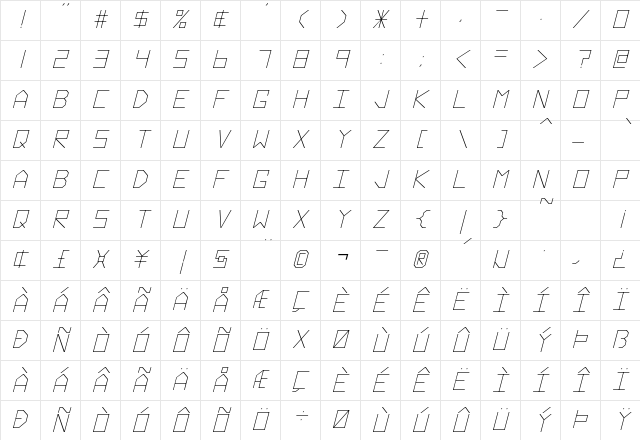
Hyperspace Italic
Foundry: Pixel Sagas
Designer: Neale Davidson
Design Context for Hyperspace
Hyperspace is a composed and adaptable typeface that performs quietly and consistently across a wide range of design contexts. The slanted form adds forward momentum and visual energy.